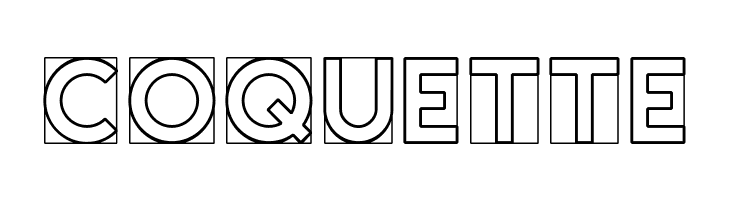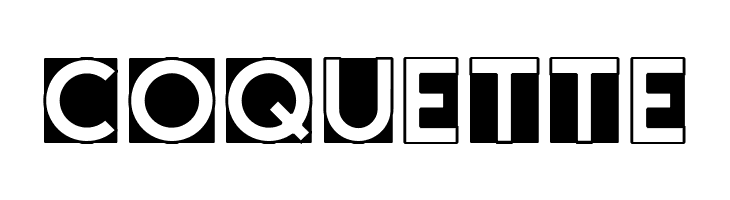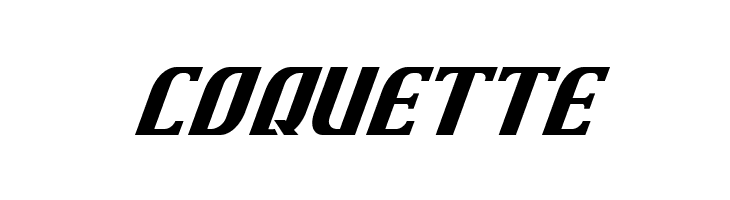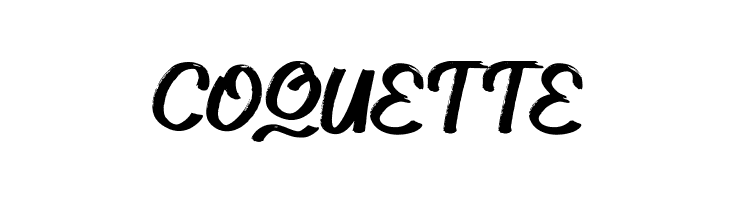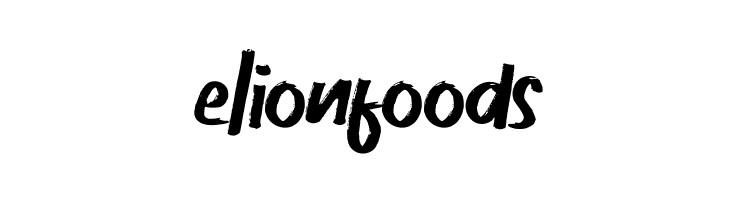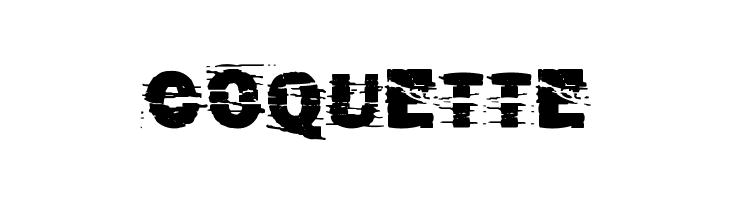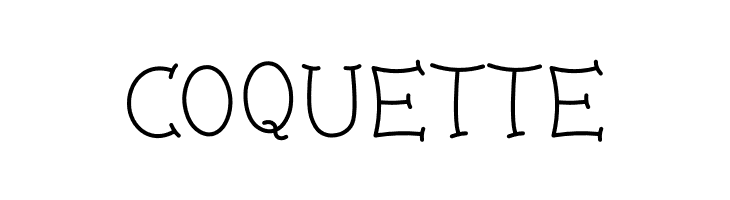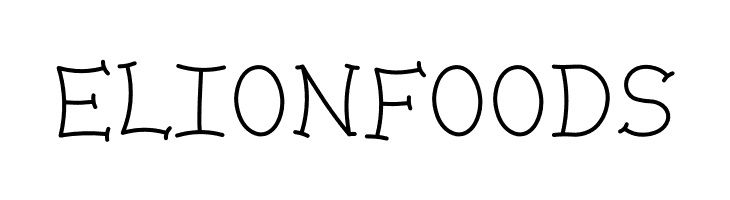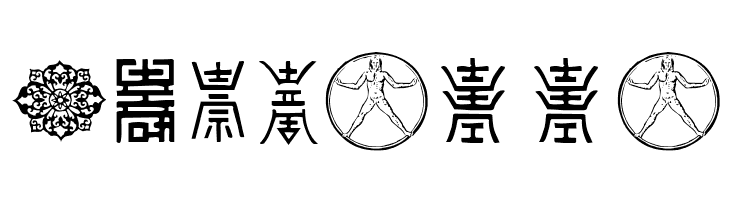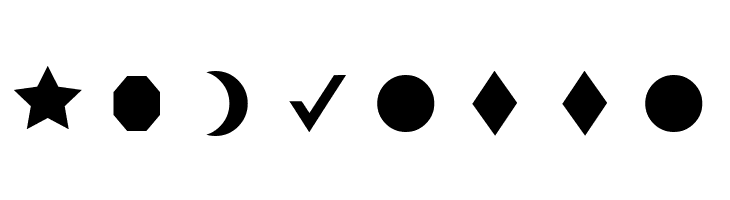
( Frankenfonts - www.thebainbridges.net/fonts/ ) An ornate, decorative font with intricate geometric details and a modern flair. Download 81 Downloads@WebFont
( Frankenfonts - www.thebainbridges.net/fonts/ ) A geometric, futuristic font with sharp angles and a structured design. Download 75 Downloads@WebFont
( Fonts by Omega Font Labs ) A diverse icon set featuring global cultural and symbolic motifs. Download 262 Downloads@WebFont
( Fonts by Manfred Klein. Free for private and charity use. Free for commercial with donation to organizations ) A playful, decorative font featuring stick figures interacting with bold, angular letters. Download 121 Downloads@WebFont
Font by JuanCasco. For commercial use please contact the owner. ( Fonts by Juan Casco - www.juancasco.net ) A bold, ancient-inspired font with sharp, angular characters. Download 692 Downloads@WebFont
( Fonts by Manfred Klein. Free for private and charity use. Free for commercial with donation to organizations ) A bold, angular font with sharp, jagged edges and a geometric style. Download 212 Downloads@WebFont
Font by danny91194. For commercial use please contact the owner. ( tricky ) A medical-themed pictogram dingbat font with bold, clear healthcare icons. Download 158 Downloads@WebFont
( Fonts by Manfred Klein. Free for private and charity use. Free for commercial with donation to organizations ) Cartoonish sci-fi dingbat font with aliens, robots, and spaceships. Download 96 Downloads@WebFont
Font by Pabasar. For commercial use please contact the owner. ( Curlberry Free ) A whimsical font with playful curls and consistent stroke width. Download 497 Downloads@WebFont
( Fonts by Jacob Fisher - www.pizzadude.dk ) A hand-drawn, artistic font with elongated, narrow characters and a uniform stroke width. Download 200 Downloads@WebFont
( Fonts by Vunira Design - Personal-use only. For commercial use please contact owner. ) A bold, expressive script font with a brush-like texture and dynamic strokes. Download 24 Downloads@WebFont
( BVintage - www.hogwartsrevolution.com/ ) A bold, expressive cursive font with fluid, dynamic strokes. Download 62 Downloads@WebFont
( Fonts by Manfred Klein. Free for private and charity use. Free for commercial with donation to organizations ) Abstract, organic font with wavy lines and playful forms. Download 124 Downloads@WebFont
( Fonts by Peter Wiegel - www.peter-wiegel.de - Personal-use only. For commercial use please contact owner. ) A bold, geometric font with a unique cut-out style, perfect for modern designs. Download 56 Downloads@WebFont
( Fonts by www.peter-wiegel.de. Personal-use only. For commercial use please contact owner. ) A bold, geometric font with a cut-out style, enclosed in square outlines. Download 124 Downloads@WebFont
( Fonts by Pennyzine - www.thedevilinjasonramirez.com - Free for personal use ) A bold, distressed font with a grunge aesthetic and irregular textures. Download 769 Downloads@WebFont
( Fonts by Manfred Klein. Free for private and charity use. Free for commercial with donation to organizations ) A narrative, woodcut-style decorative font with each character as a detailed illustration. Download 112 Downloads@WebFont
( Fonts by Manfred Klein. Free for private and charity use. Free for commercial with donation to organizations ) Decorative font with face illustrations. Download 129 Downloads@WebFont
( Fonts by Peter Wiegel - www.peter-wiegel.de - Personal-use only. For commercial use please contact owner. ) Bold, geometric font with a unique cut-out effect for striking visual impact. Download 85 Downloads@WebFont
( Fonts by www.peter-wiegel.de. Personal-use only. For commercial use please contact owner. ) Bold, geometric font with high contrast and enclosed characters. Download 267 Downloads@WebFont
( Fonts by Vunira Design - Personal-use only. For commercial use please contact owner. ) A bold, angular script font with sharp edges and a modern flair. Download 48 Downloads@WebFont
( Fonts by fredcre.free.fr - Personal-use only. For commercial use please contact owner. ) A bold, geometric font with angular, blocky shapes. Download 265 Downloads@WebFont
( Fonts are free for a personal use only - www.cuttyfruty.com ) A lively and expressive handwritten font with fluid, cursive strokes. Download 1665 Downloads@WebFont
( Fonts by Manfred Klein. Free for private and charity use. Free for commercial with donation to organizations ) A traditional Blackletter font with ornate, angular letterforms and a gothic aesthetic. Download 236 Downloads@WebFont
( Fonts by Manfred Klein. Free for private and charity use. Free for commercial with donation to organizations ) A bold, decorative blackletter font with circular borders and high contrast strokes. Download 136 Downloads@WebFont
( Fonts by Manfred Klein. Free for private and charity use. Free for commercial with donation to organizations ) A classic serif font with elegant curves and medium contrast, ideal for sophisticated design projects. Download 428 Downloads@WebFont
( Fonts by Manfred Klein. Free for private and charity use. Free for commercial with donation to organizations ) A dynamic, calligraphic font with a modern twist and elegant flow. Download 768 Downloads@WebFont